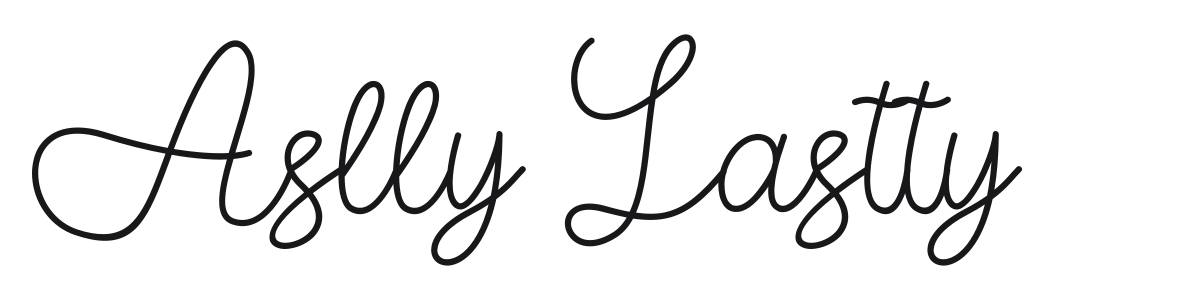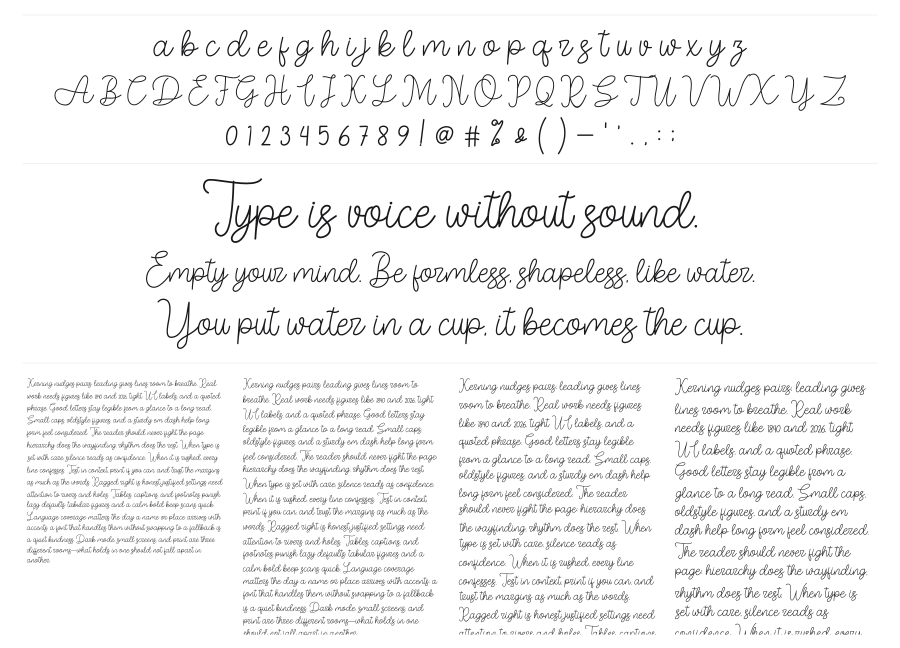
Aslly Lastty
Aslly Lastty is a monoline connected script with smooth, looping strokes and a consistently light line weight throughout. The fluid connections and generous loops give it a relaxed, handcrafted warmth that sits comfortably between casual and refined. It suits branding, packaging, and logotype work where a personal, pen-written touch is the goal.